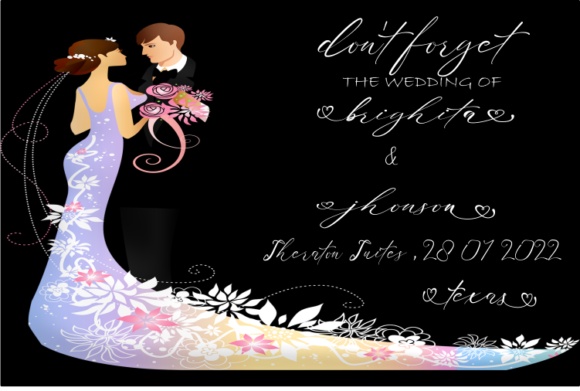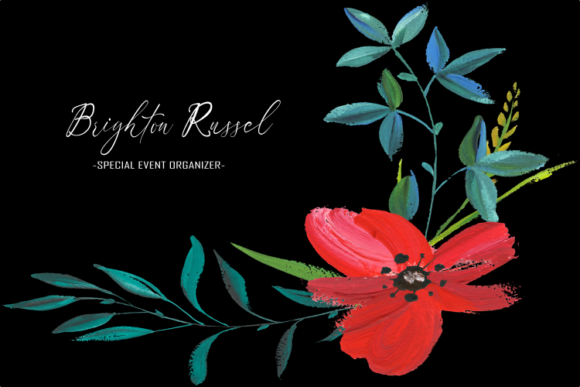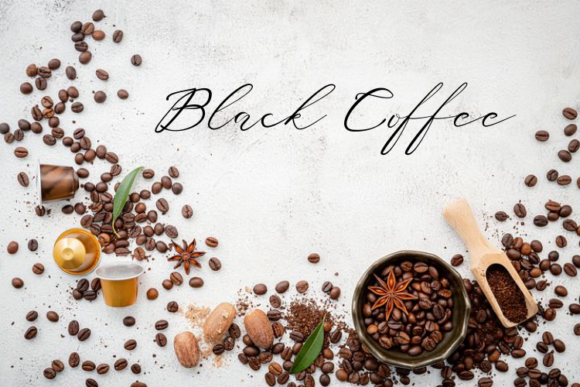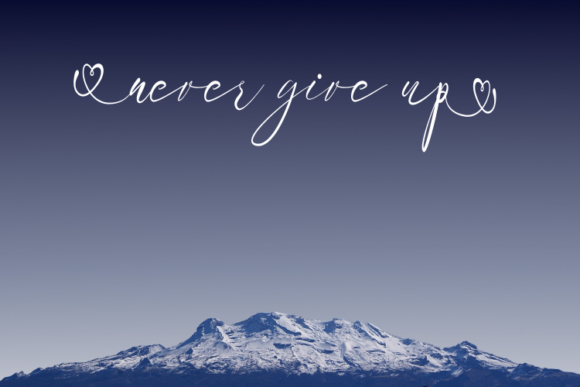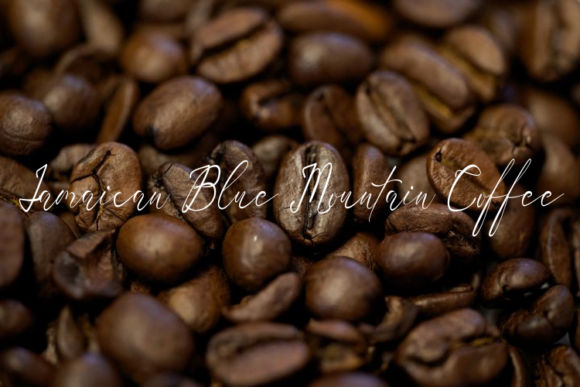
The Perfect Touch of Elegance with Almaira Font
There’s nothing quite like the feeling of finally finding the perfect font for your next design project. It’s like stumbling upon a hidden treasure, and suddenly all the pieces fall into place. This is exactly what happens when you discover the Almaira Font – a romantic and sweet calligraphy typeface that will add a touch of luxury to any project.
With its beautifully crafted characters that dance along the baseline, Almaira Font is a game-changer for designers looking to elevate their work. This PUA-encoded font makes it easy to access all the amazing glyphs and ligatures, giving you endless possibilities to create stunning designs.
Almaira Font Key Features
- Unique Characteristics: The font features a unique blend of modern and traditional design elements, with intricate details and ornate flourishes that set it apart from more generic fonts.
Almaira Font Review
I recently had the chance to work with the Almaira font, and I must say it’s a unique and interesting choice. Here’s my honest review:
- The Almaira font has a distinct, hand-drawn feel that can add a touch of personality to designs.
- It comes in a variety of weights and styles, making it easy to find the perfect fit for your project.
- The font is highly legible, even at smaller sizes, which is a must for any design.
- The Almaira font may not be the best choice for body text, as it can be a bit too ornate for large blocks of text.
- Some of the characters may not be perfectly optimized for digital use, which can lead to issues with scaling and rendering.
The Almaira font is a great choice for designers who want to add a touch of whimsy and personality to their designs. While it may have some limitations, its unique feel and high legibility make it a great option for headings, titles, and other design elements where a bold statement is needed.
Tips for Getting the Most Out of Almaira Font
For the best results, use Almaira Font in conjunction with high-quality images and a clear, concise message. Experiment with different font sizes and colors to create visual interest and emphasize key points.
Almaira Font is ideal for:
- Print materials, such as business cards and brochures